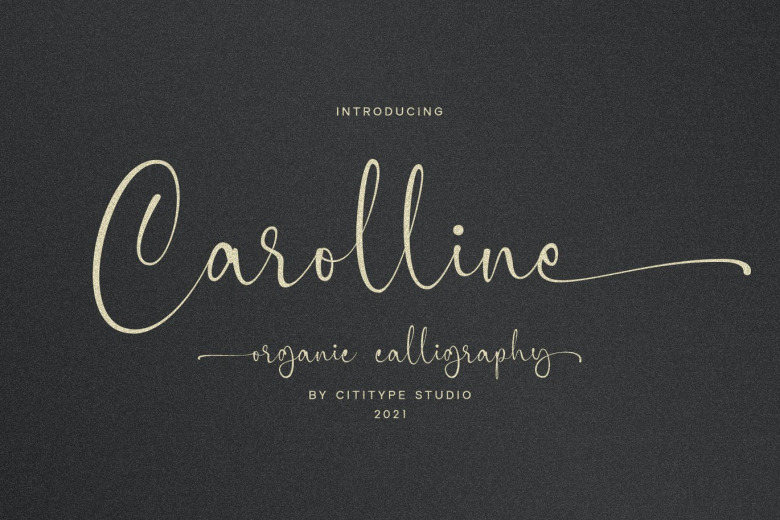
Carolline Font
Carolline is a romantic and stylish handwritten script font. It has a dynamic base line, smooth lines, beautiful glyphs and exotic alternates. Carolline is perfect for those designs that need personalized style, and it works for wedding invitations, thank you cards, weddings, greeting cards, logos etc.
Carolline Handwritten Script Font